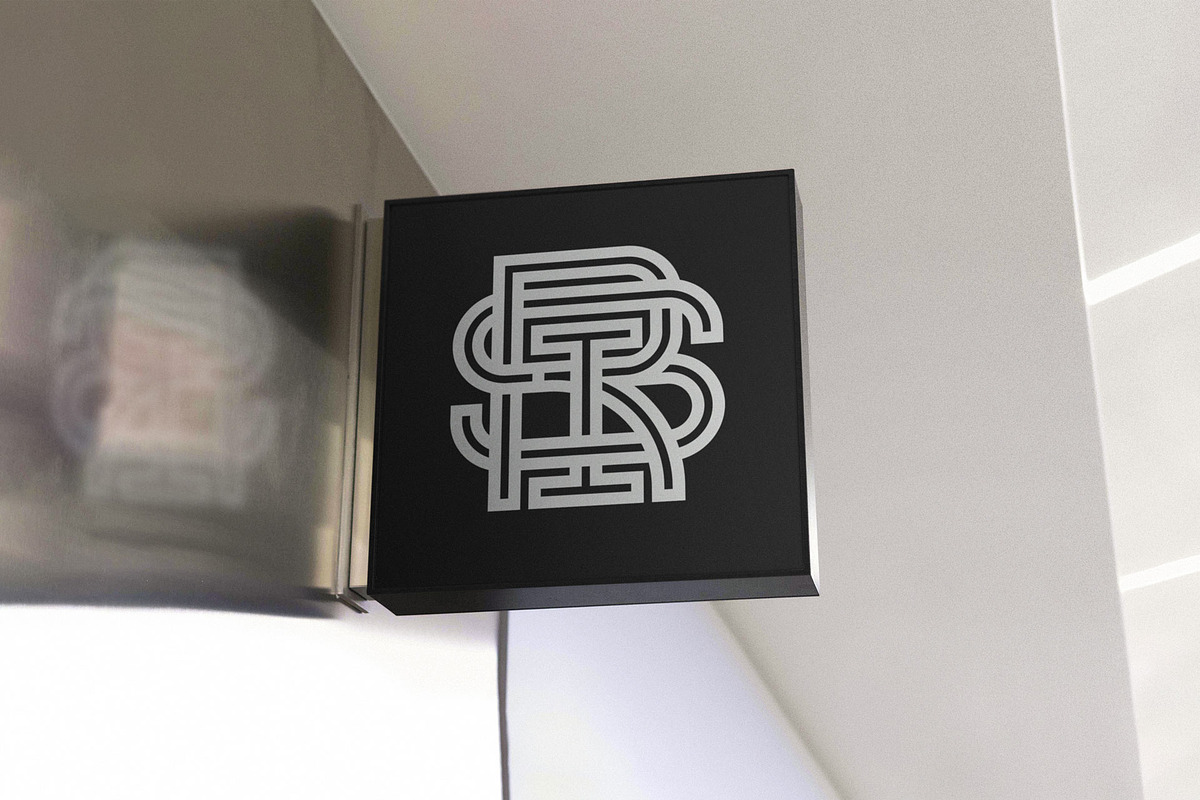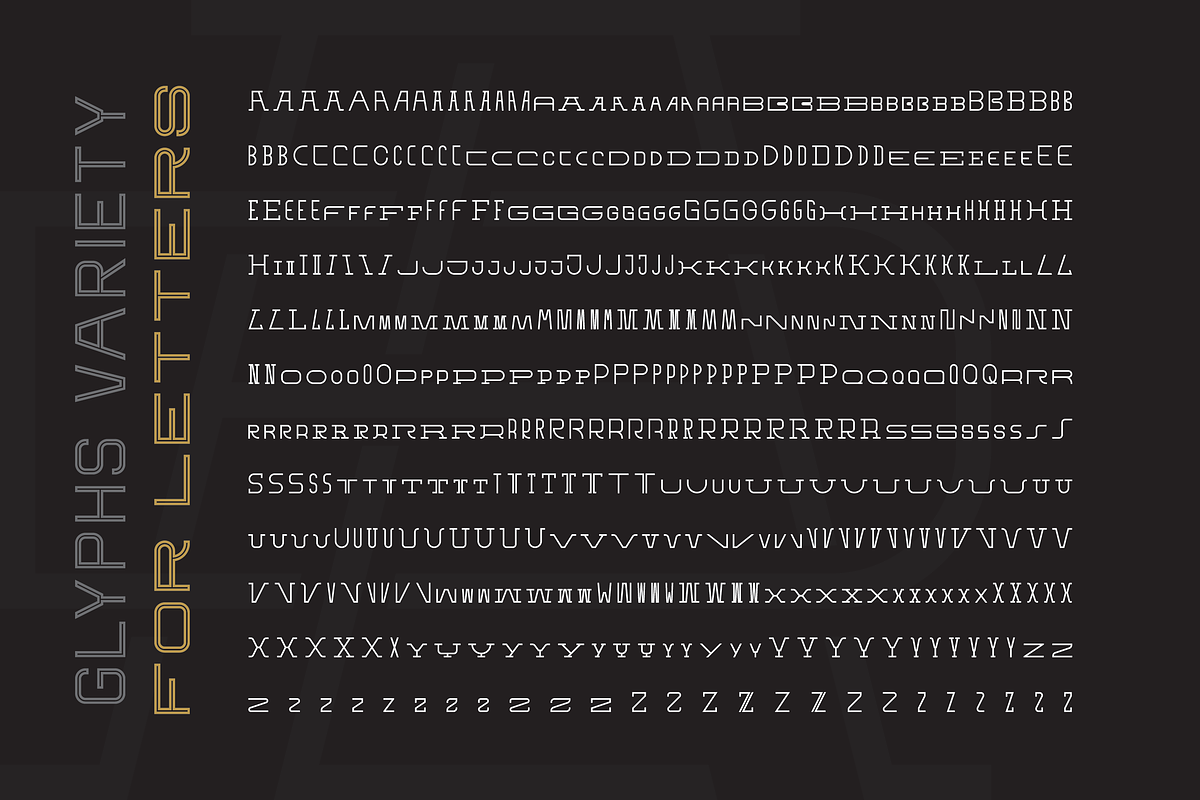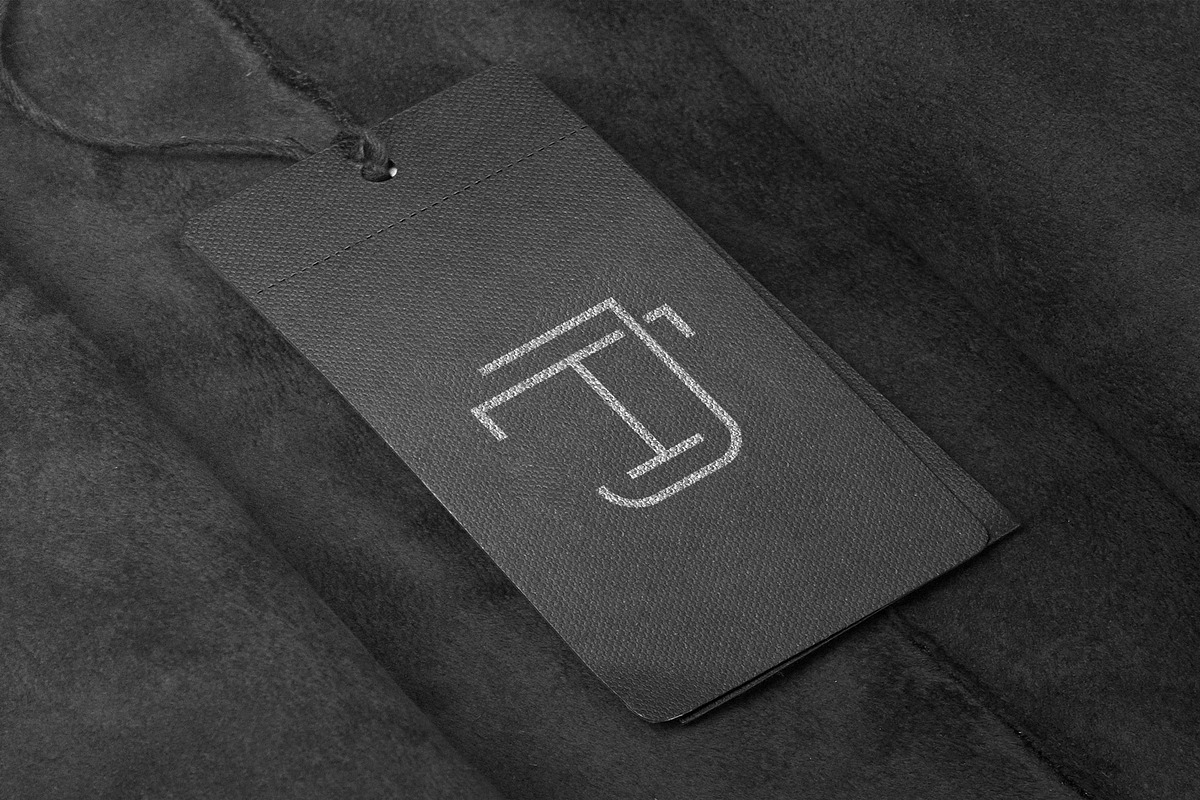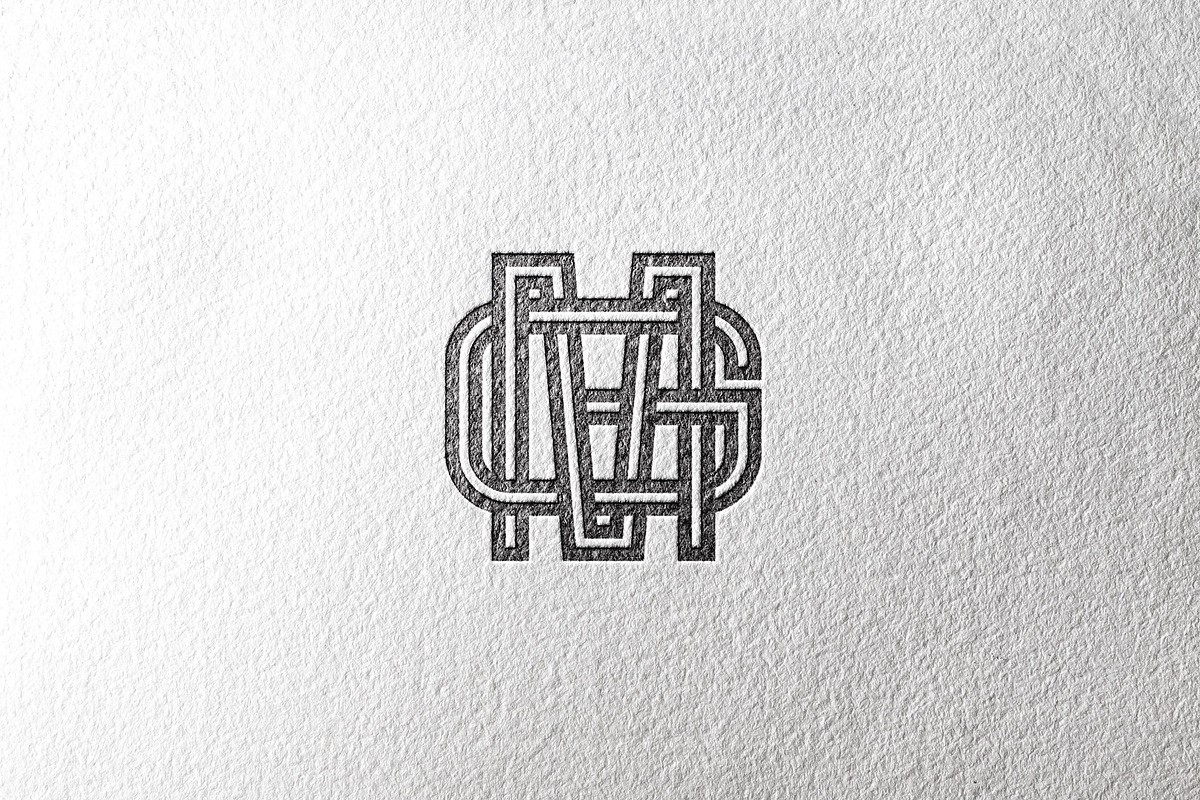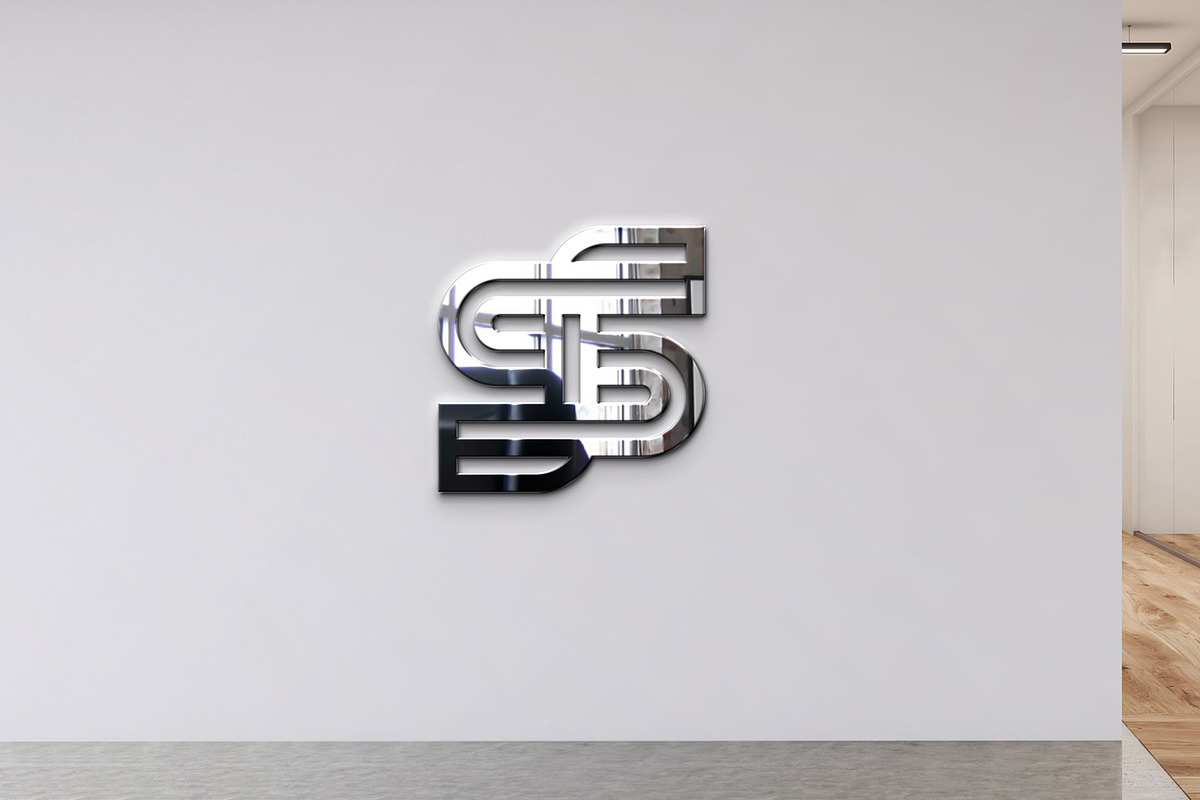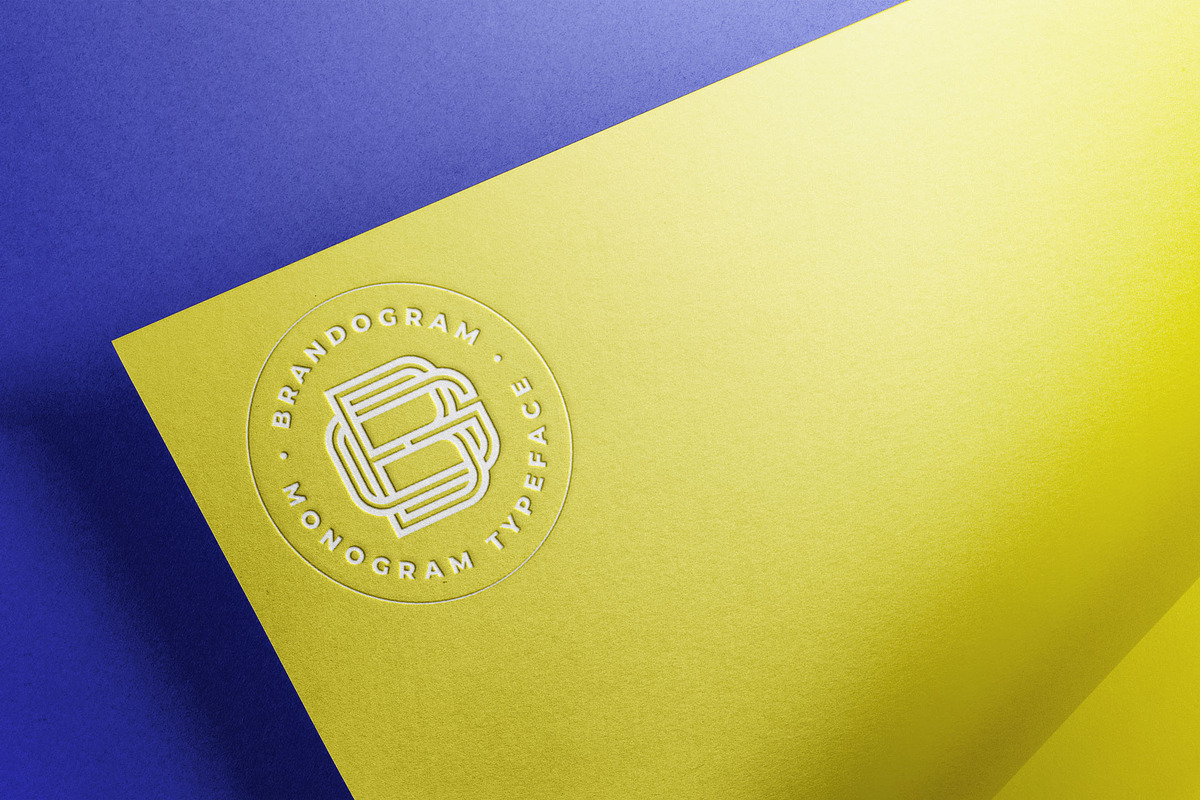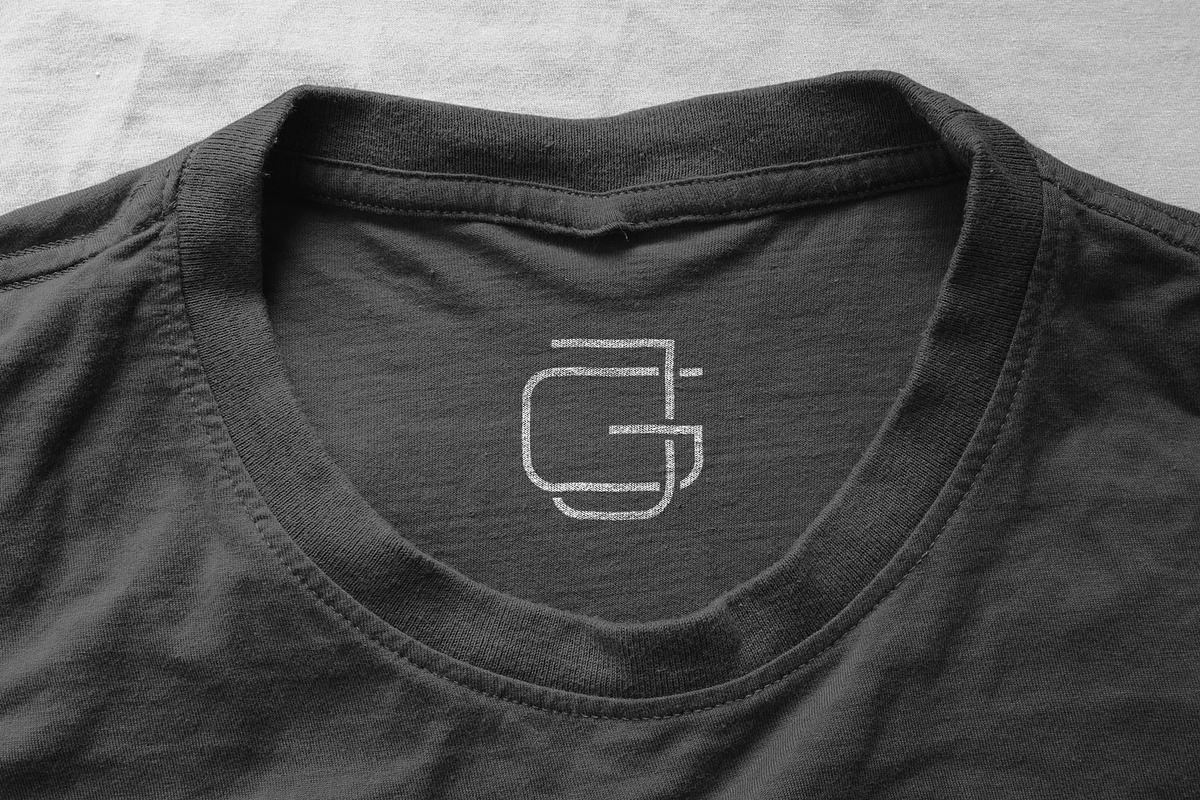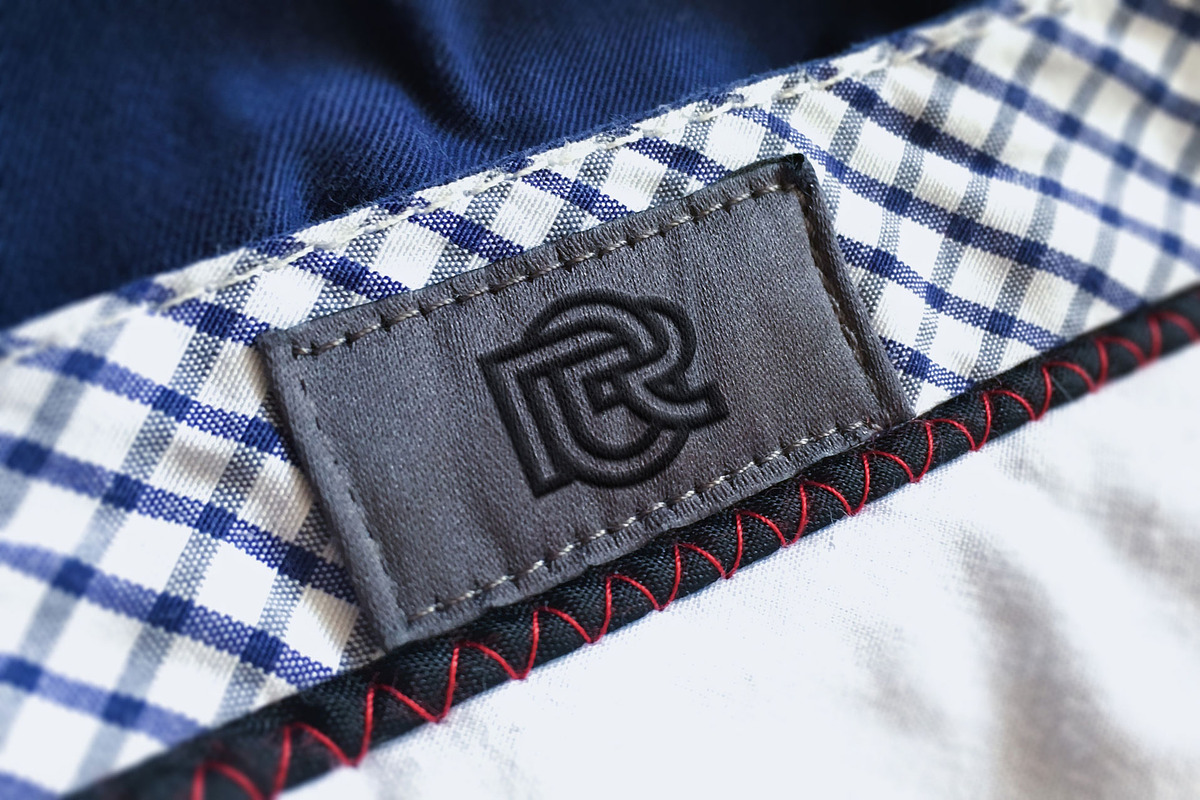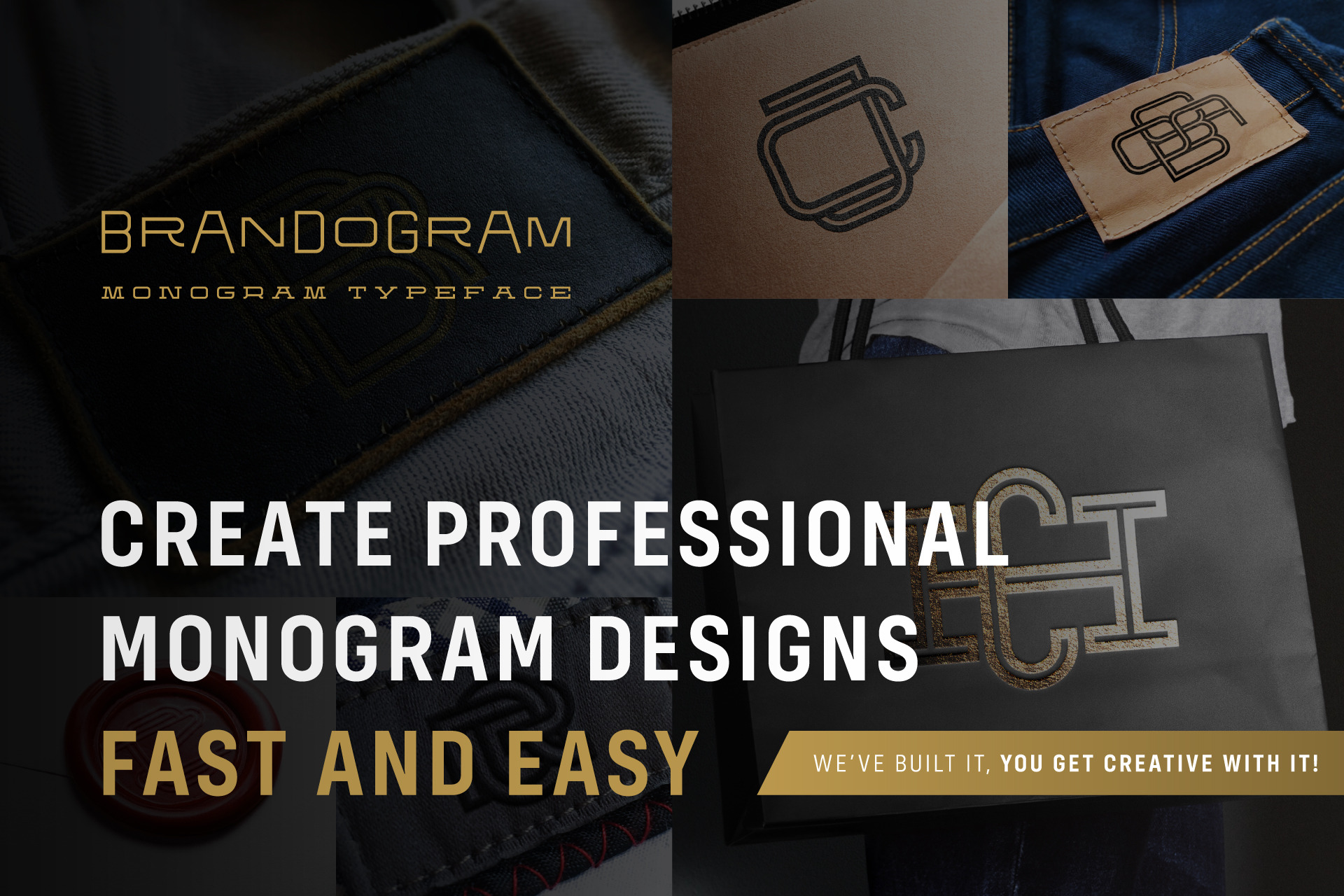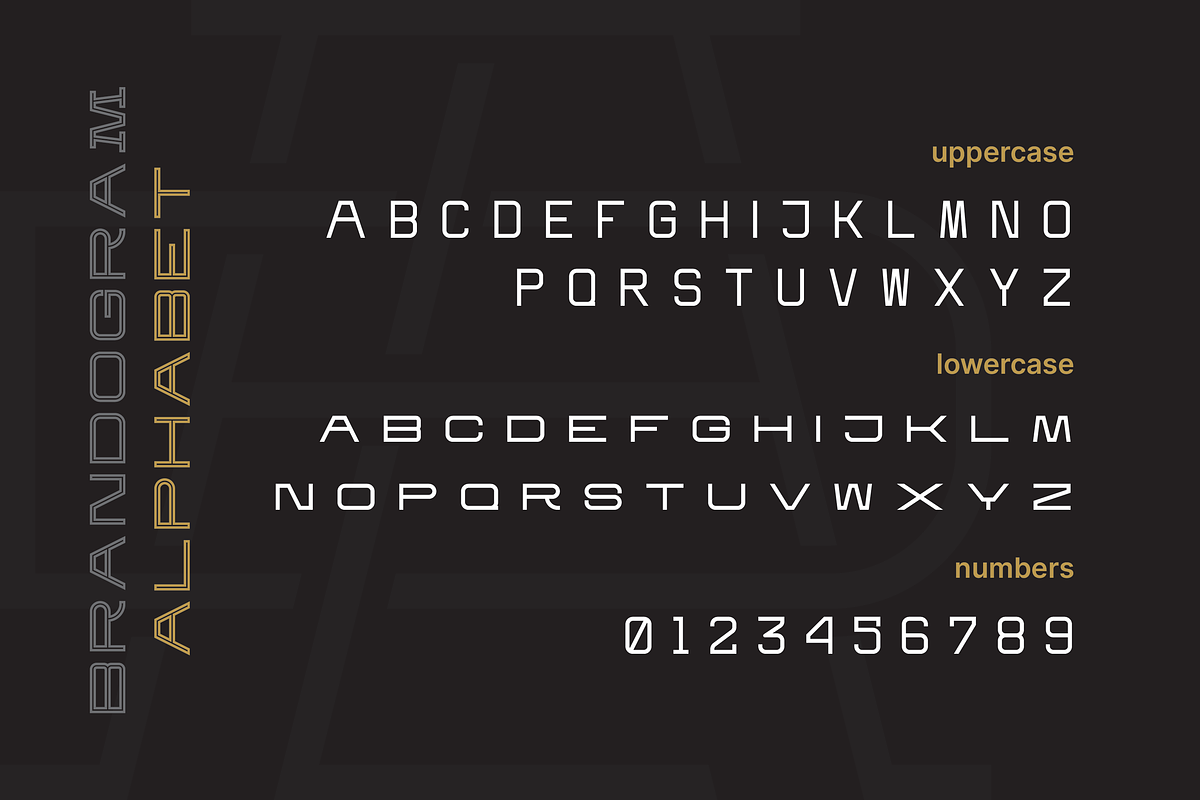
Brandogram Monogram Typeface
After months of testing and development, we have managed to put together the Brandogram Typeface, an ultimate tool for monogram design. With the help of this typeface you can easily create a monogram in less than a minute.
Thanks to the way we have created and optimised Brandogram, the uppercase letters effortlessly fit together with the small caps that are activated by the lowercase letters.
Using the Brandogram typeface you can create unlimited monogram combos with 2, 3 or even 4 letters in some cases. And these are all possible thanks to features like:
- Multiple letter widths, from condensed to wide;
- Both sans serif and slab serif letter designs;
- Up to 24 different designs per letter;
- All letter variations are available as alternates so you can easily choose your favorite;
- Accents are available for each letter alternate;
- Uppercase and lowercase activated letters are constructed to perfectly center and middle align;
- There are 5 solid ready-made weights;
- There are another 2 stencil weights that can bring a new touch to your designs.
The 7 weights of Brandogram Monogram Typeface:
Each of these weights are thought to express different levels of heaviness. The thicker the weight of the font gets, the less white space will be left between the letters when they are combined, therefore your design gets heavier. The role of the stencil weights is to create depth in the monogram designs. With those you can easily delete the extra overlapping shapes of the letters and create passages between the letters and give an interlocking impression.
This typeface combined with your creativity can have no limits!